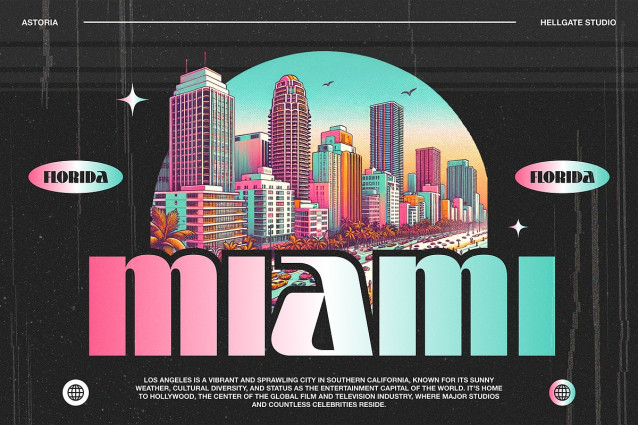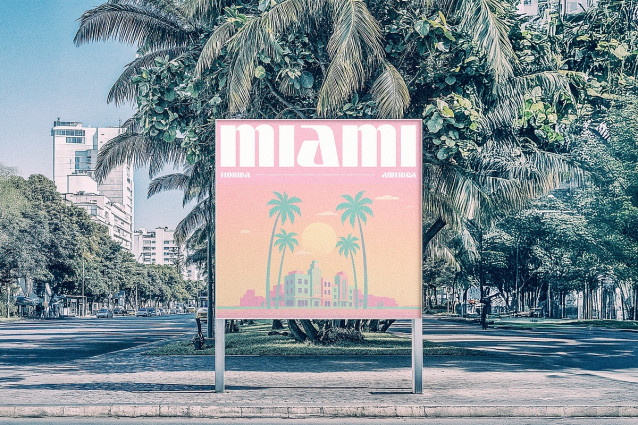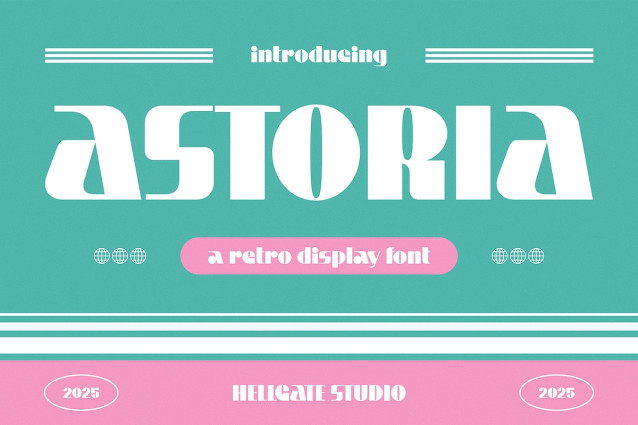
Astoria Font
Astoria Font – a striking Retro Display Font with an audacious attitude. Expertly designed for flair and readability, the Astoria font embodies the iconic aesthetic of Retro Miami Vice.
The Astoria font provides effortless versatility, allowing for seamless editing of text and color. Rendered with meticulous precision, this font offers high-quality impact for your themed designs. The Astoria font package includes OTF files for your convenience. Enjoy accessing the uniquely classic essence of Astoria today.